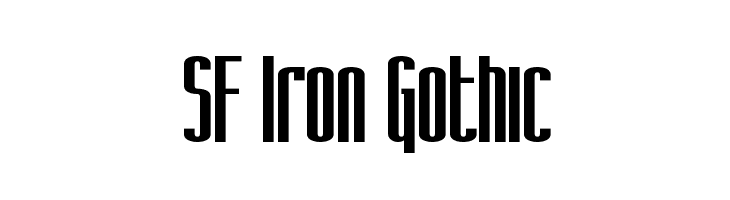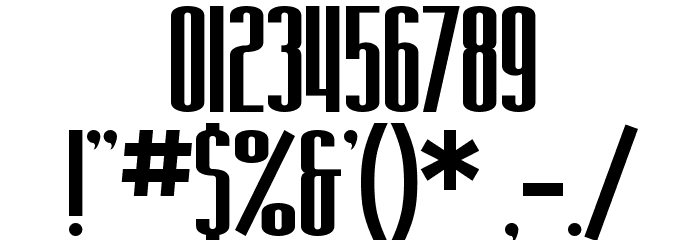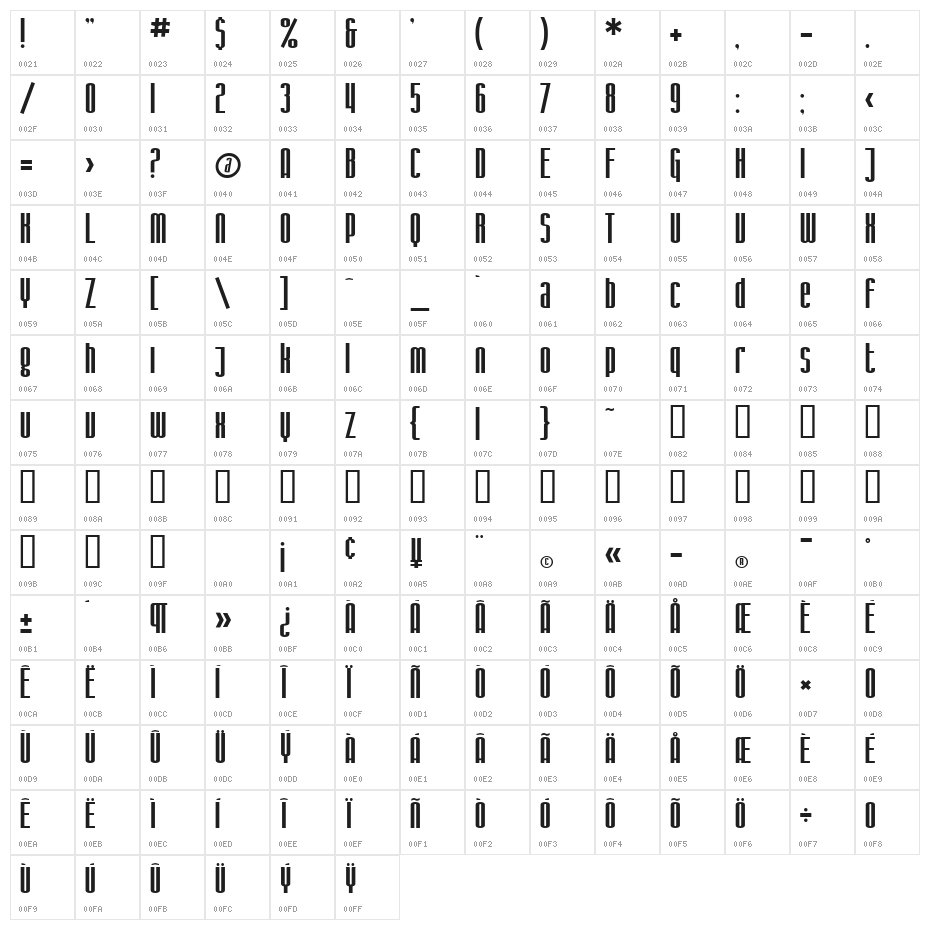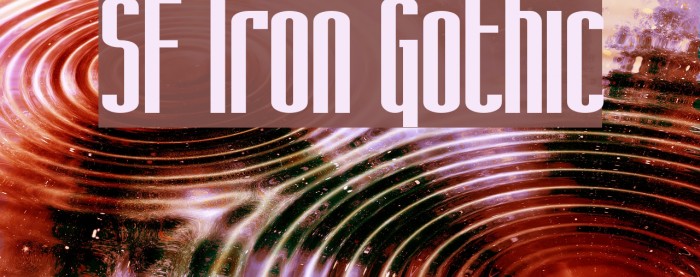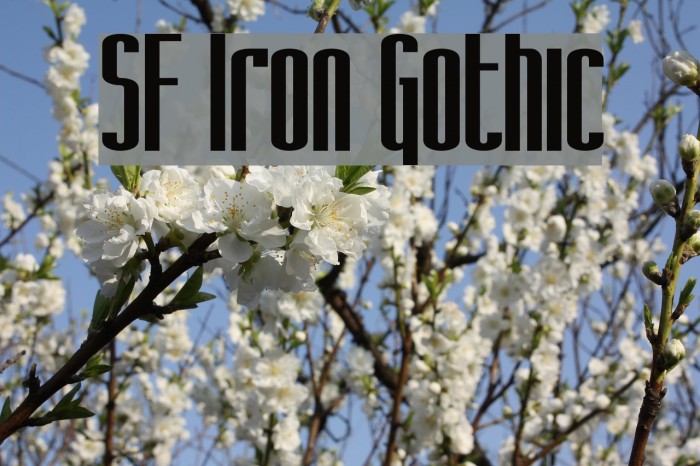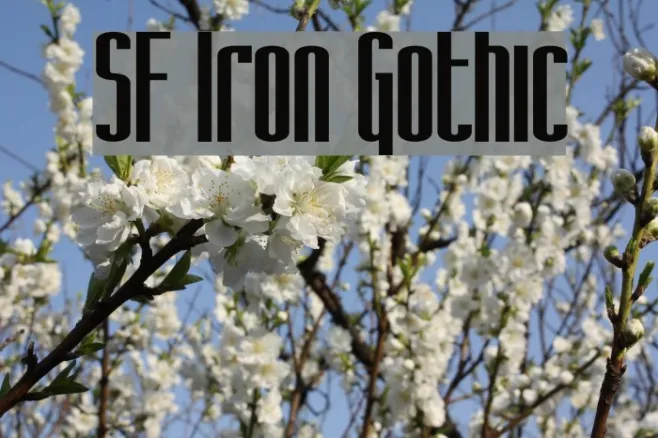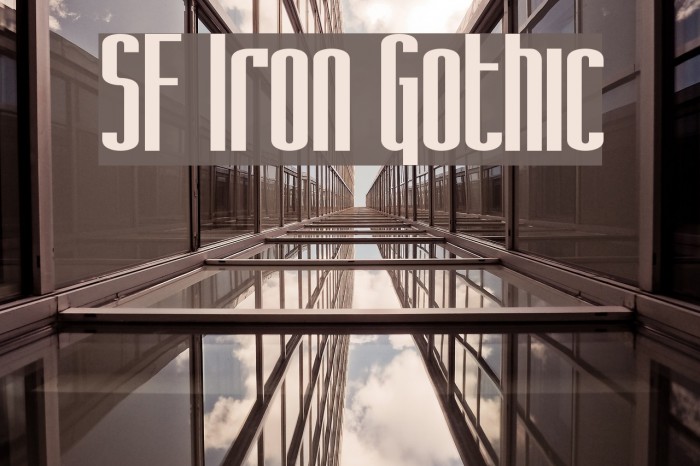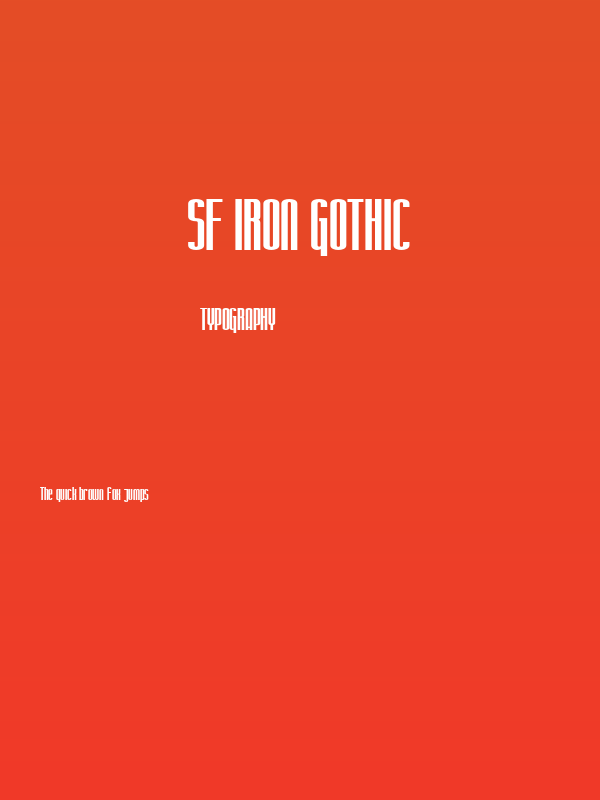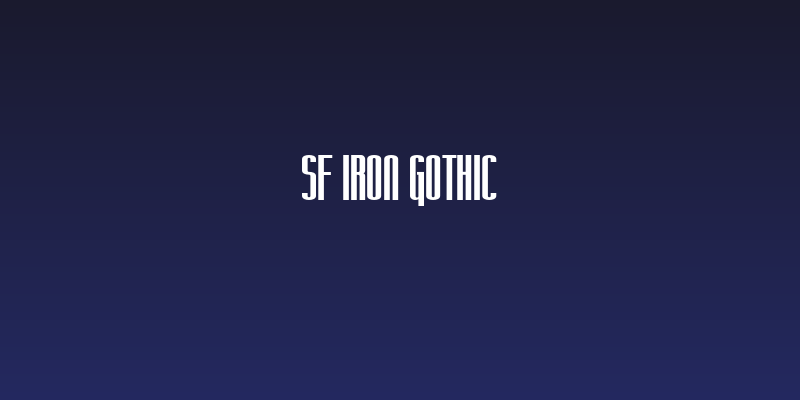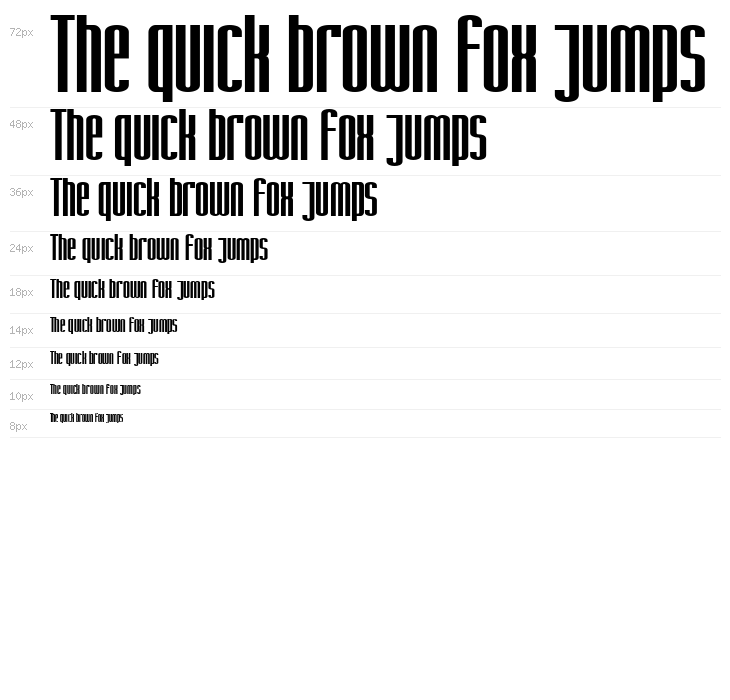
SF Iron Gothic Font
SF Iron Gothic Description
This font features a bold and striking design with tall, narrow characters that convey a sense of strength and modernity. The uppercase letters are particularly elongated, giving the typeface a unique and commanding presence. The lowercase letters maintain the same narrow structure, ensuring consistency across the font. Numbers and special characters are designed to match the overall aesthetic, making this font versatile for various applications. The clean lines and lack of serifs contribute to its modern and industrial feel, making it suitable for projects that require a bold statement.
| Proposed Projects | Ideal for branding, posters, headlines, and any design requiring a strong visual impact. |